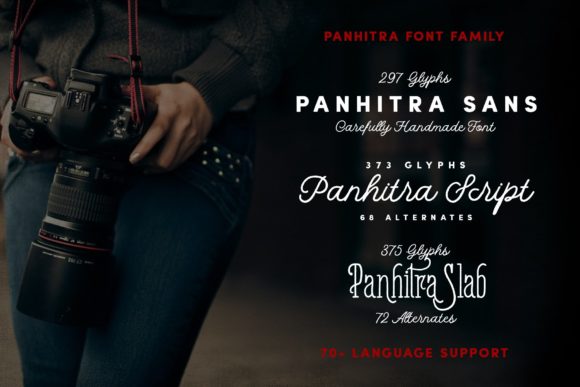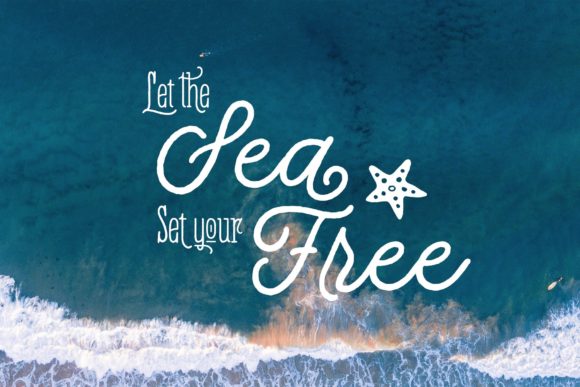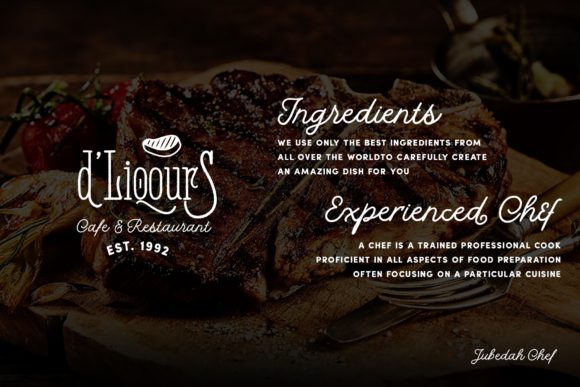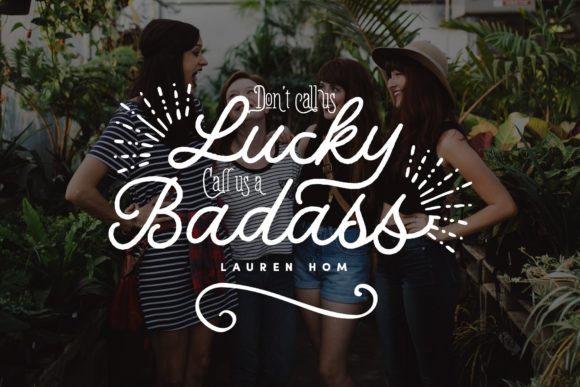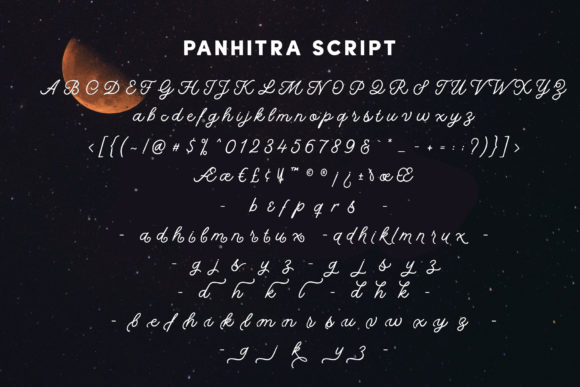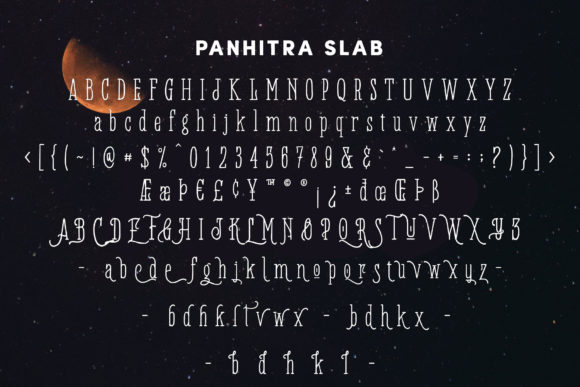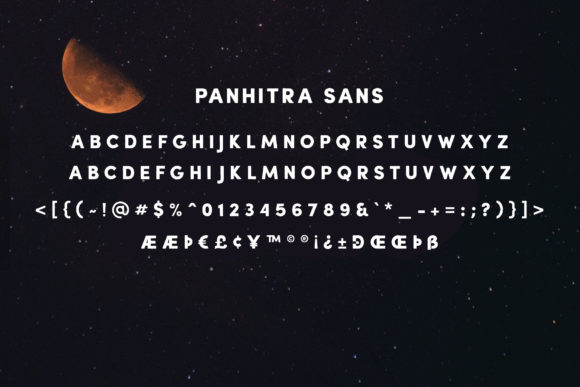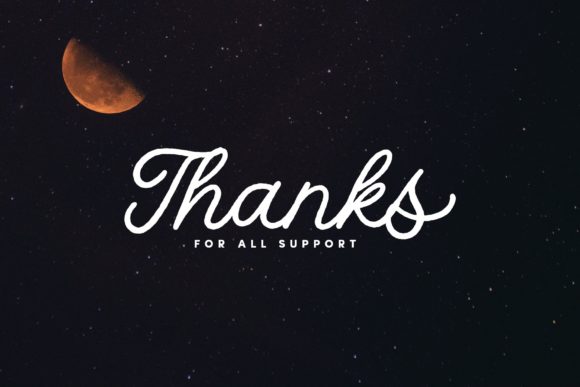
Panhitra Family Font
About Panhitra Family Font
Panhitra is a stunning handwritten font with an elegant charm. It will turn any design project into a true stand out!